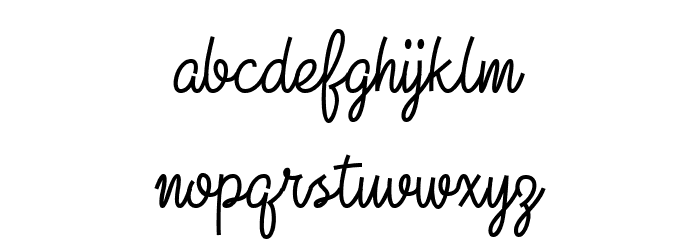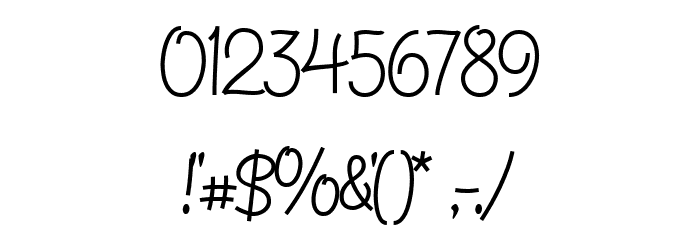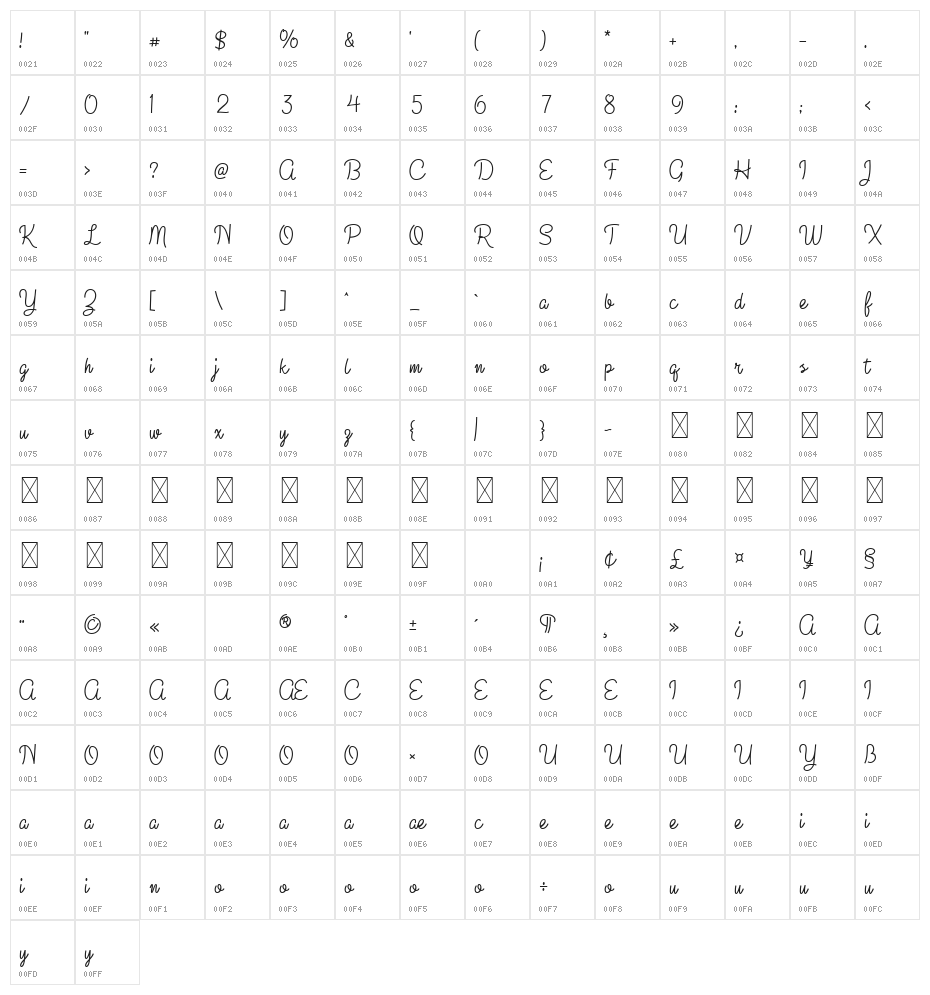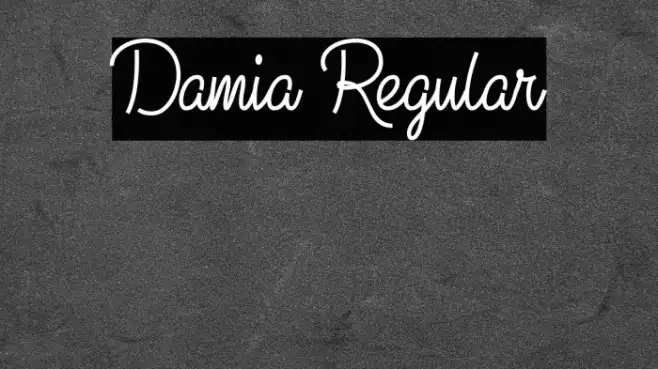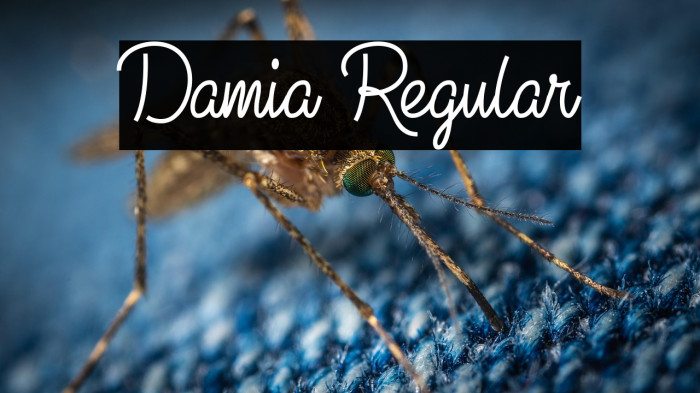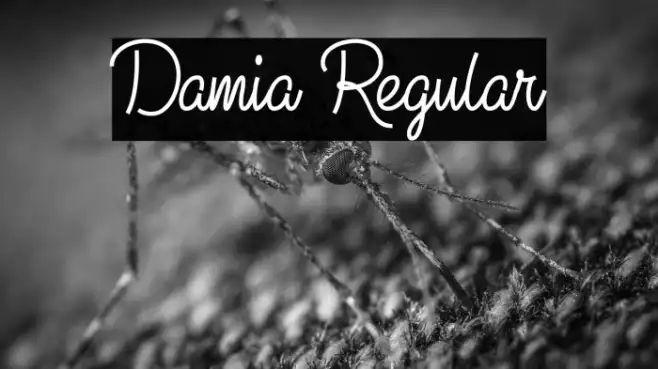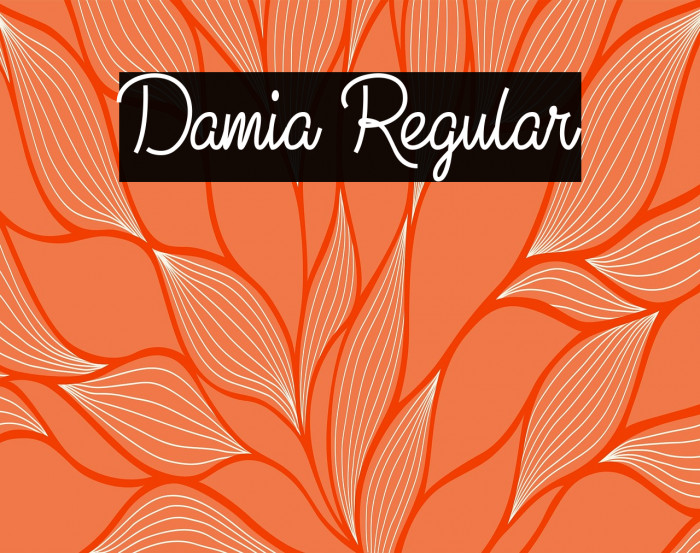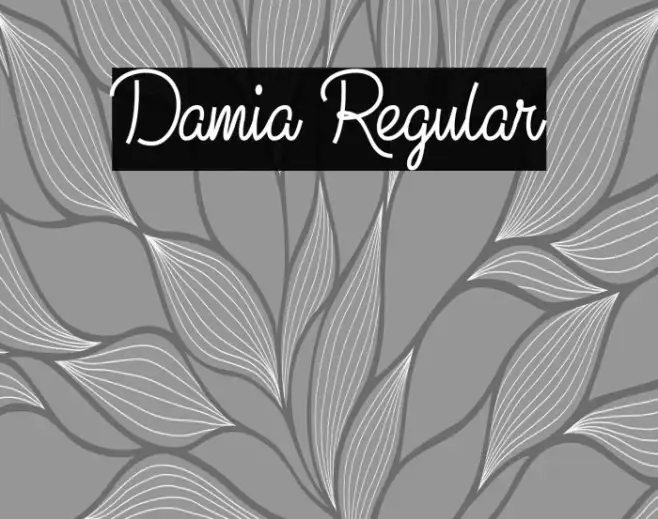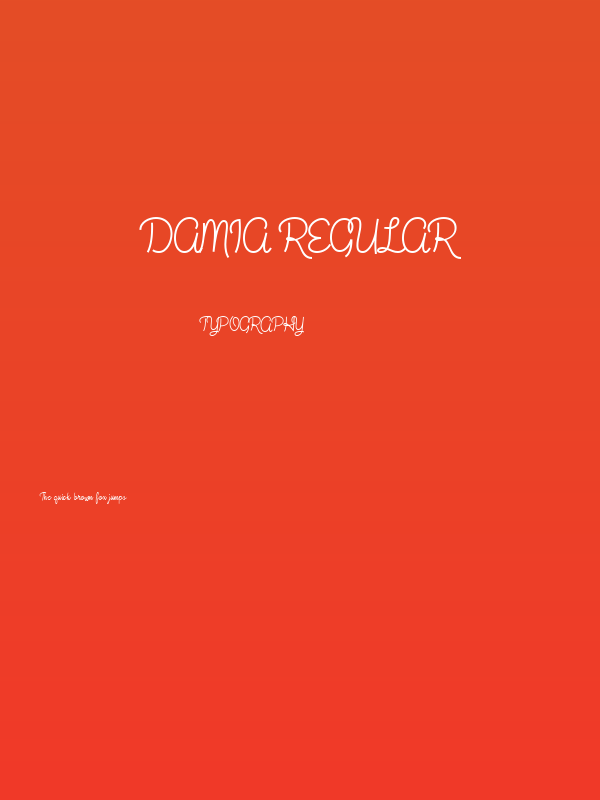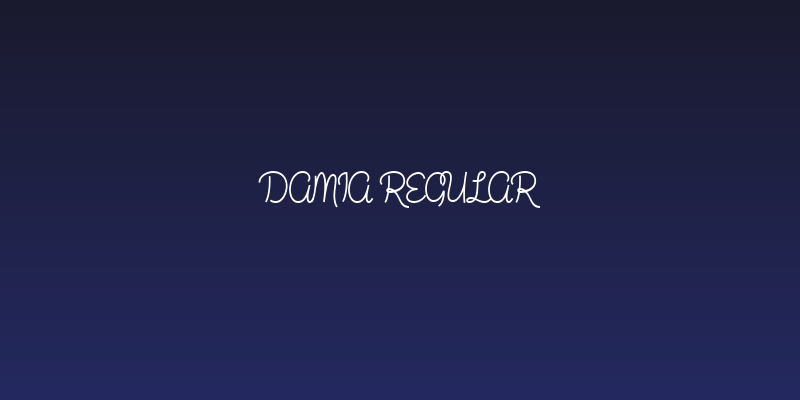
Damia Regular Font
This font features a flowing, cursive style with elegant loops and swirls, giving it a handwritten appearance. The uppercase letters are bold and prominent, while the lowercase letters maintain a consistent flow, enhancing readability. The numerals are distinct and clear, matching the overall aesthetic of the font. Special characters are creatively integrated, maintaining the font's cohesive style. This font is ideal for projects that require a personal touch, such as invitations, greeting cards, or branding materials. Its unique style makes it stand out while remaining legible.
A flowing, cursive font with elegant loops and a handwritten appearance.
- Proposed Projects: Ideal for invitations, greeting cards, branding materials, and personal projects.
- Category: Script
- Use Case: Logos, Headlines, Invitations